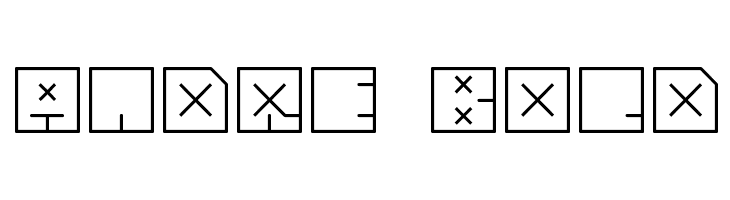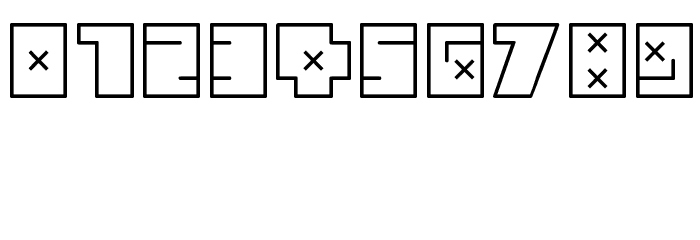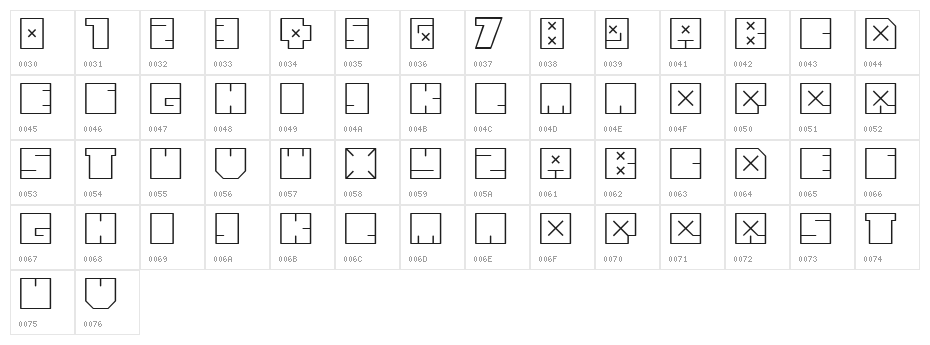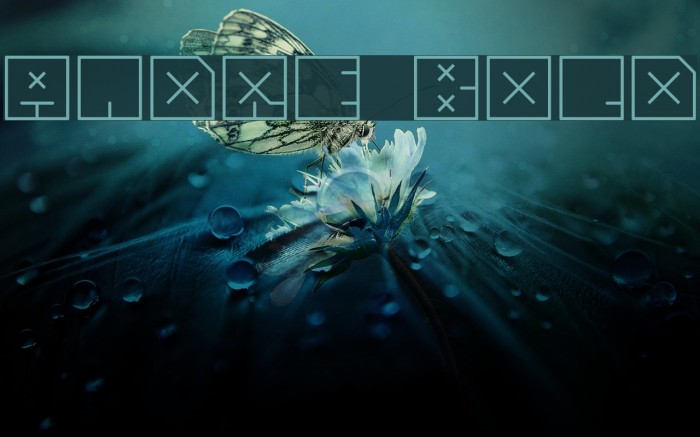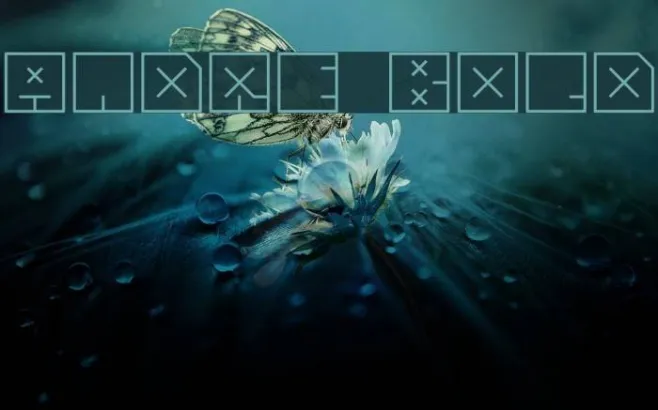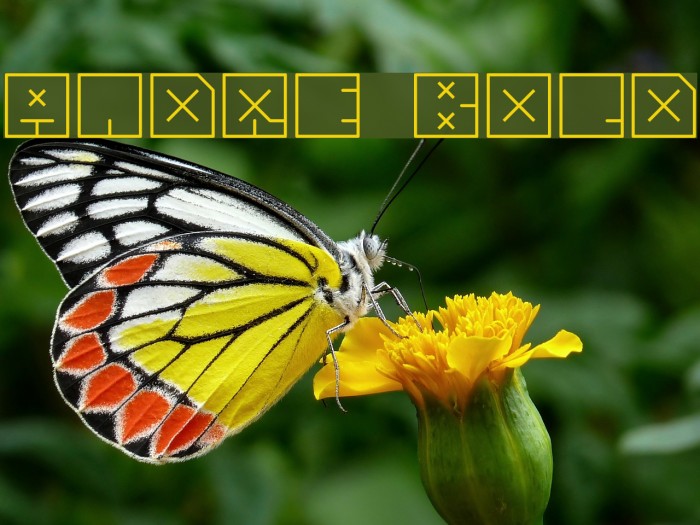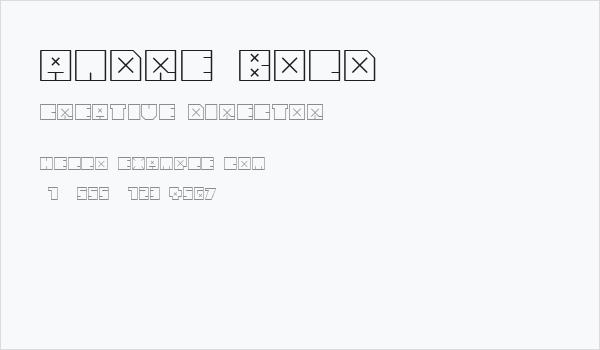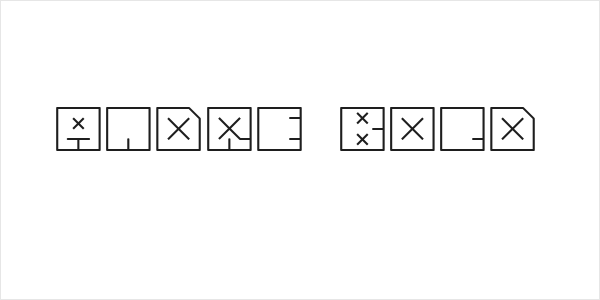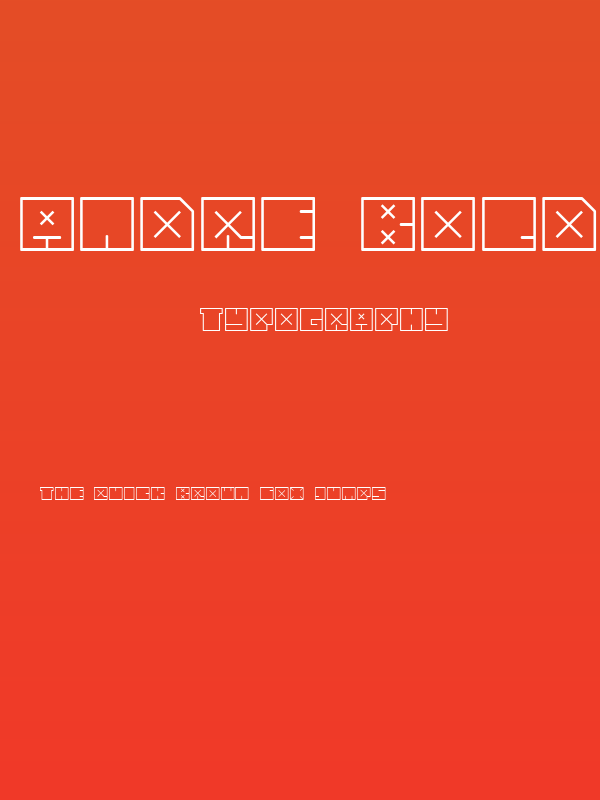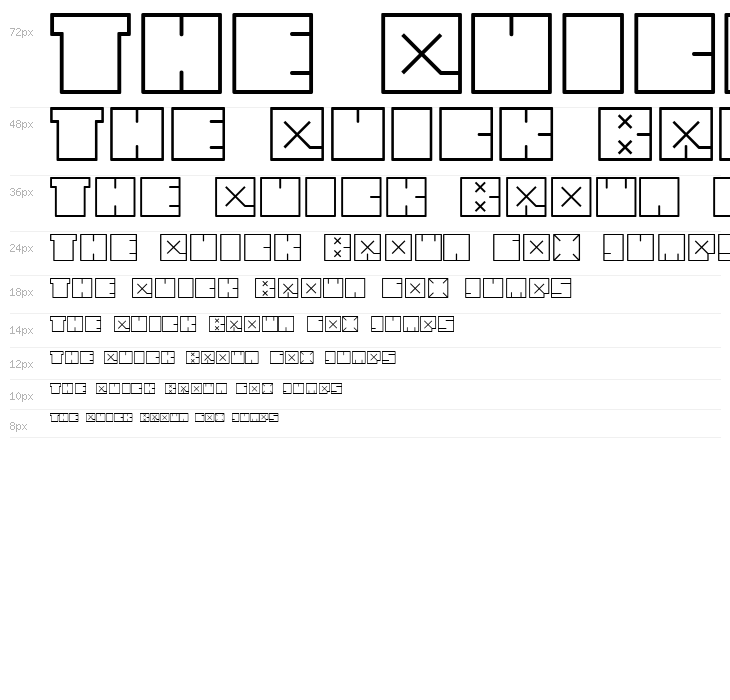
andre bold Font
andre bold Description
This font features a bold, geometric design with a distinct boxy appearance. Each character is enclosed within a square or rectangular outline, giving it a structured and modern look. The lines are uniform in thickness, contributing to a cohesive and balanced aesthetic. The font's unique style is characterized by its use of negative space, which adds an element of intrigue and visual interest. The uppercase and lowercase letters maintain a consistent design, while the numbers and special characters follow the same geometric theme, ensuring a harmonious overall appearance.